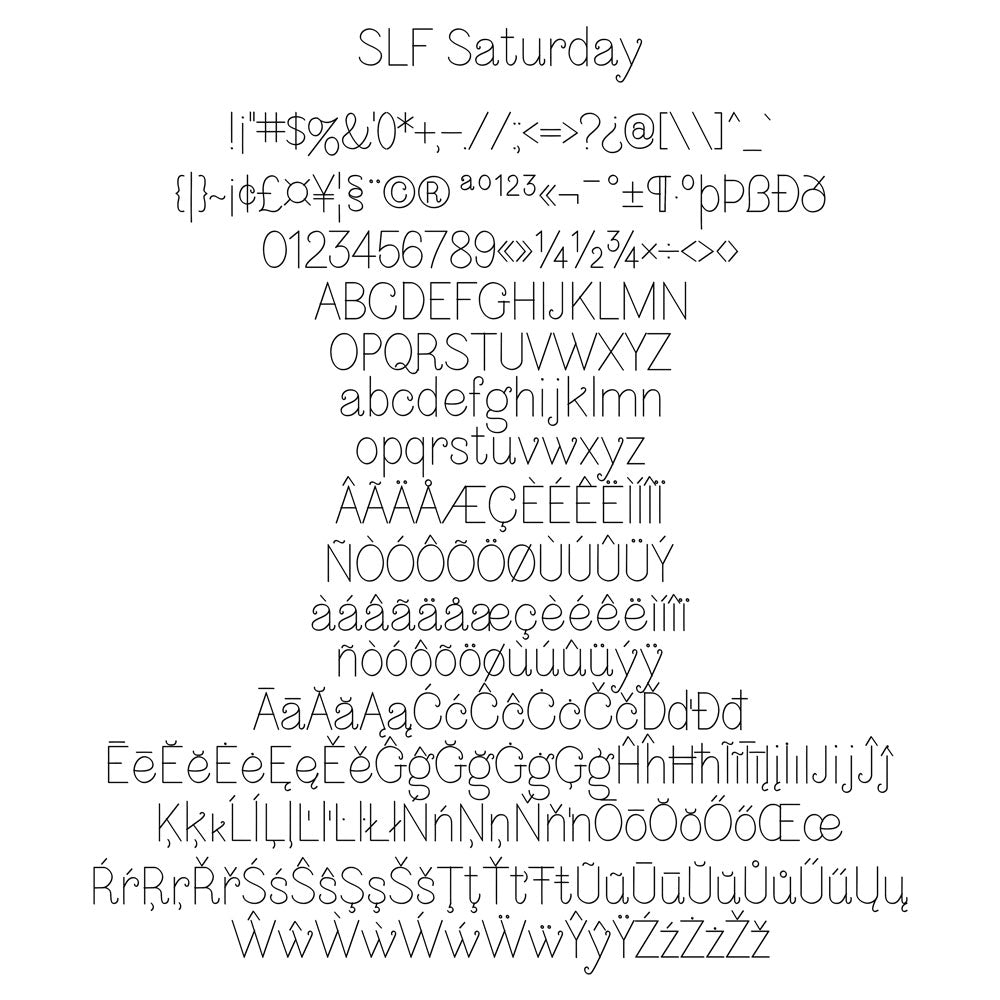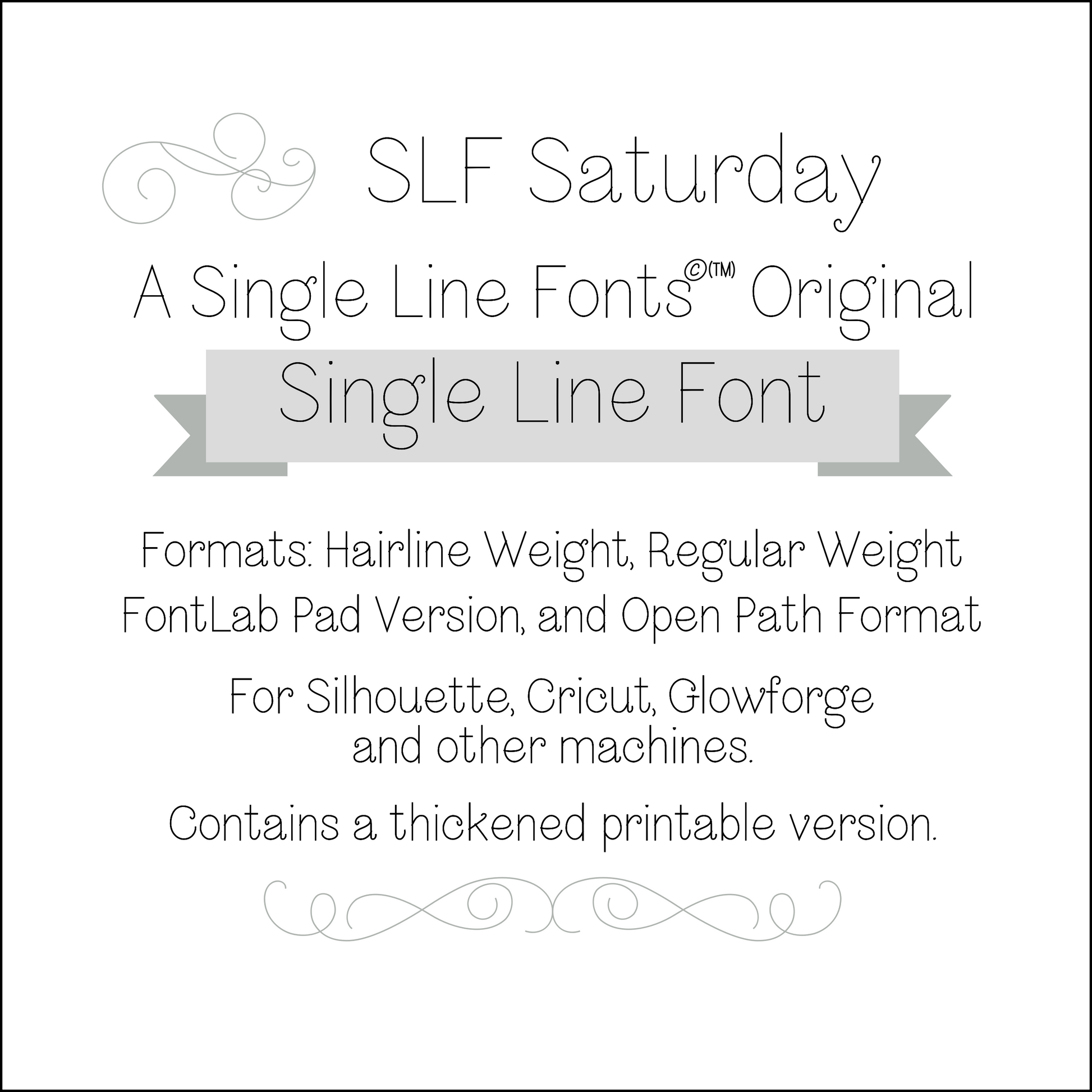
SLF Saturday – Single Line Font for Glowforge, Cricut & CNC
SLF Saturday is a relaxed, casual handwritten single line font with laid-back charm. Its flowing, simple strokes make it perfect for laser engraving, CNC projects, sketch pen tools, Cricut engraving, and creative craft designs on wood, metal, paper, and more.
This monoline font includes a complete character set with uppercase and lowercase letters, numbers, punctuation, symbols, and accented characters for multilingual support.